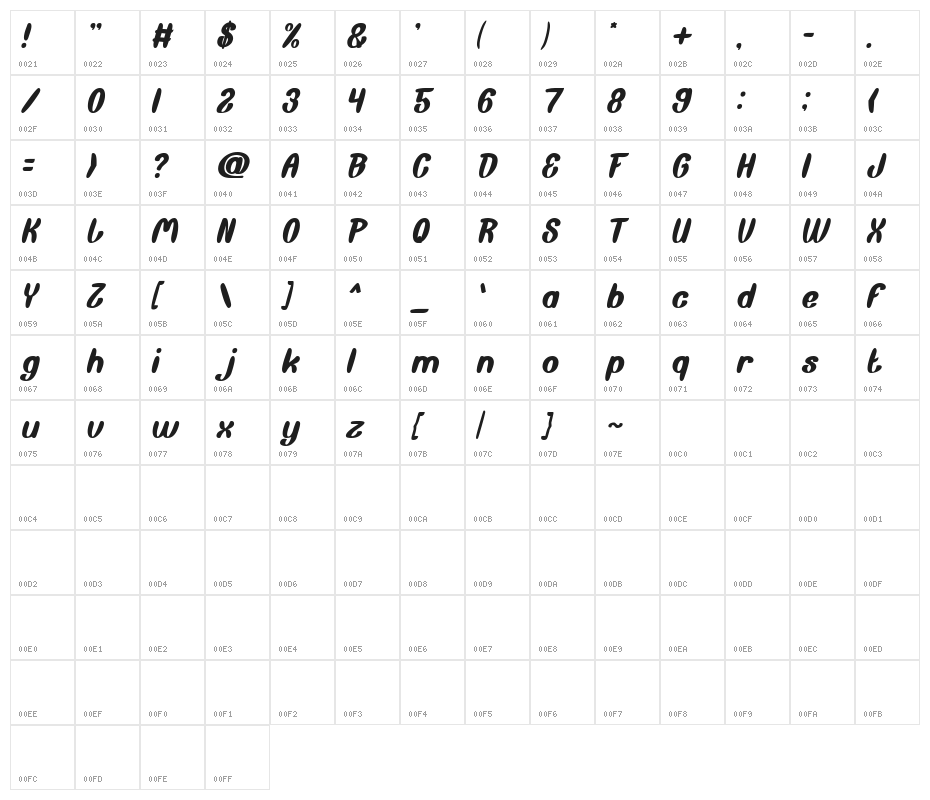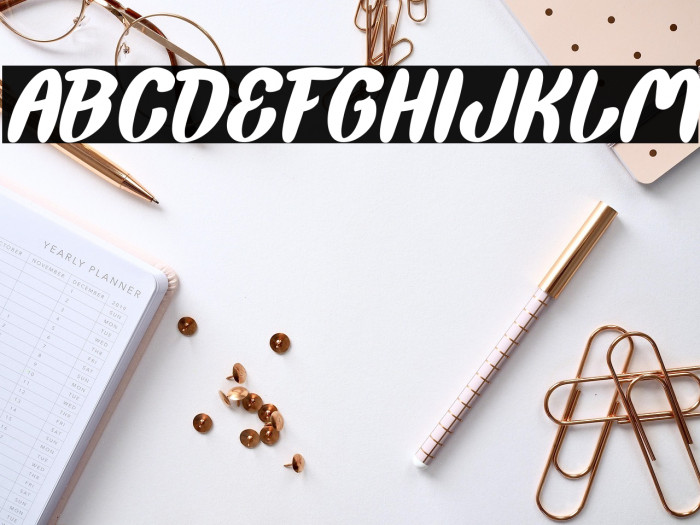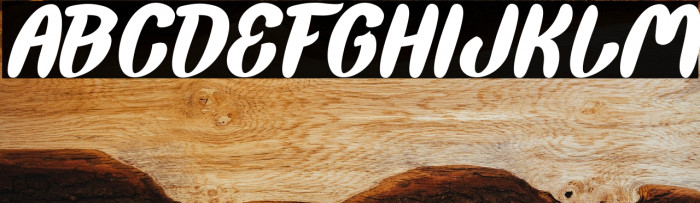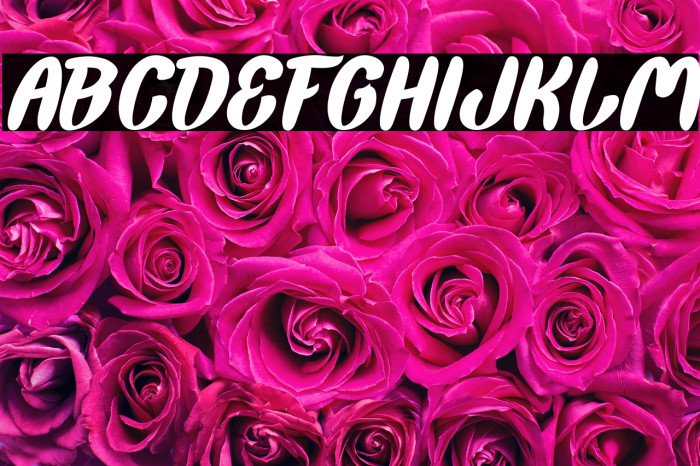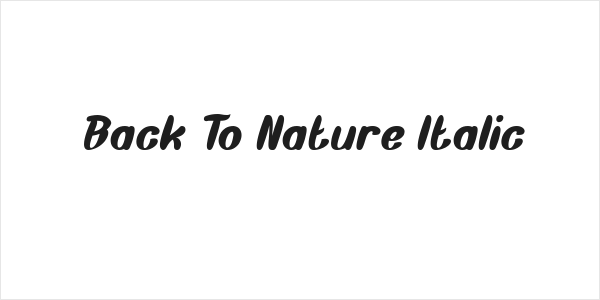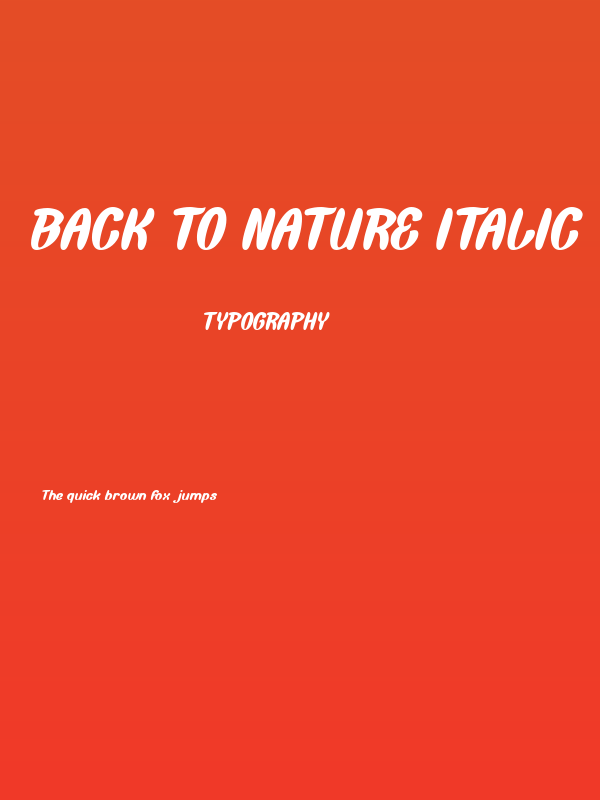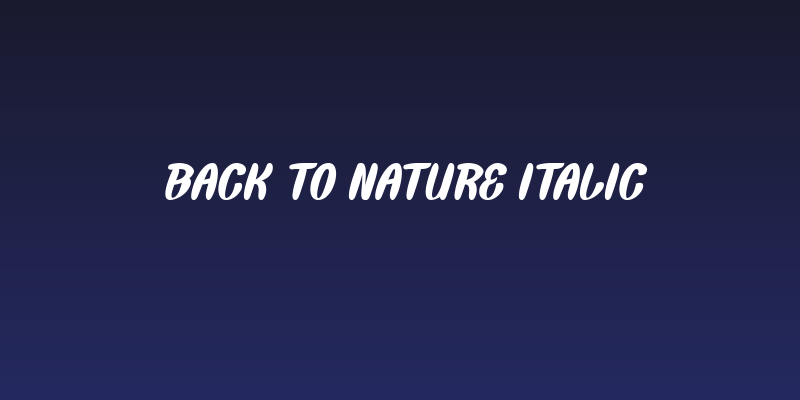
Back To Nature Italic Font
Back To Nature Italic Description
This font features a bold, flowing script style with a distinctly italicized slant, giving it a dynamic and energetic appearance. The characters are rounded and smooth, with a consistent stroke width that adds to its boldness. The uppercase letters are slightly larger than the lowercase, maintaining a harmonious balance. The numerals and special characters follow the same stylistic cues, ensuring uniformity across all glyphs. Its playful yet sophisticated design makes it suitable for a variety of creative applications.